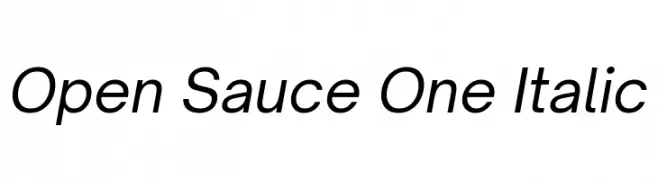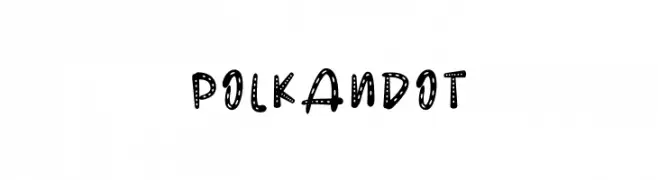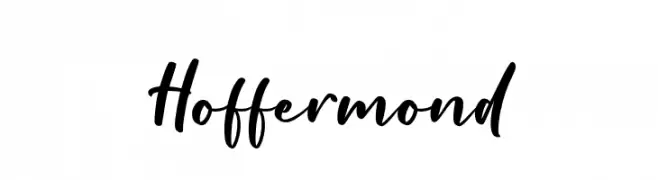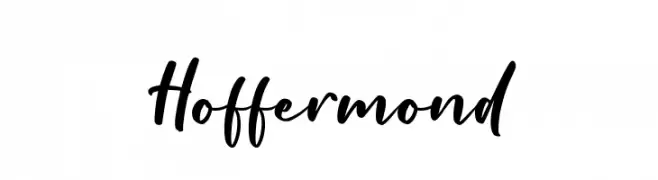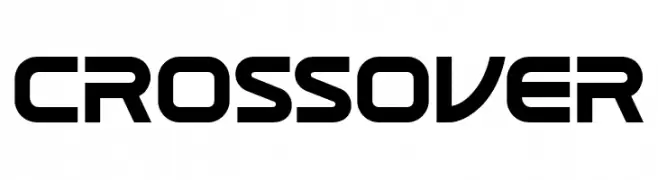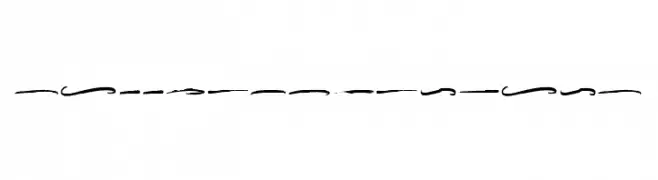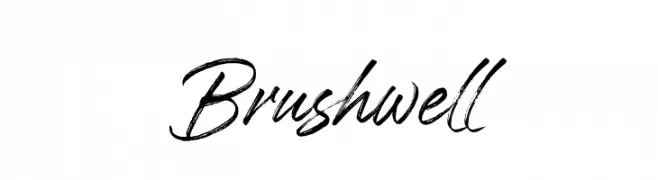
A modern, italicized font with clean lines and consistent stroke width.
A playful, polka-dotted font with bold, rounded characters.
A bold, expressive script font with a handwritten style.
A dynamic and expressive script font with a handwritten appearance.
A bold, cursive handwritten font with a dynamic and elegant style.
A graceful cursive font with elegant, sweeping strokes and decorative flourishes.
A bold, futuristic font with geometric elements and a modern appearance.
A decorative font with elegant swashes and calligraphic flourishes.
A bold, textured script font with a dynamic, handcrafted feel.
A dynamic, brush-style font with fluid strokes and artistic flair.